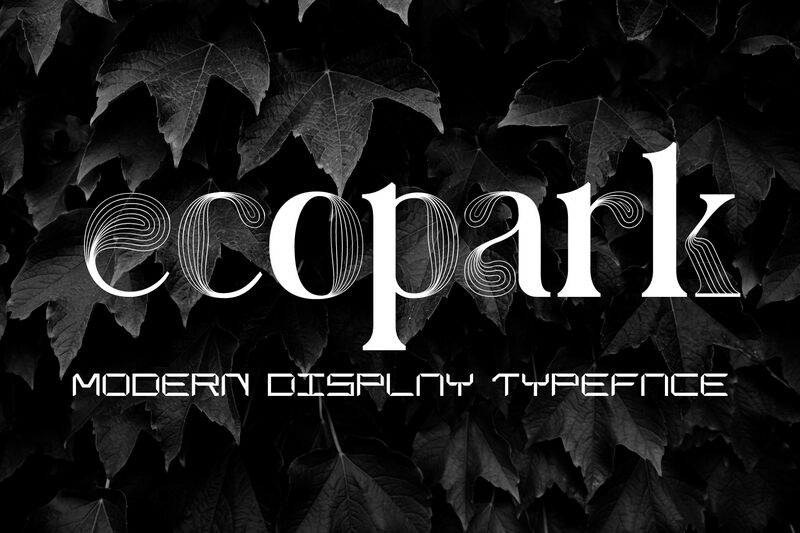
Ecopark font by 177Studio is a free decorative display font with an ornate, sophisticated, and artistic design. It boasts high-contrast characters with thin curves, elegant shapes, and delicate lines which ensure a stylish yet clear presentation of every letter. Each character has been meticulously crafted so that they grace your textual projects with their absence of monotony. The beauty of the Ecopark font derives from its simplicity and elegance.
Use this beauty in social media posts on Instagram or Facebook; main headings for your magazines or newspapers; greeting card messages for wedding, Valentine’s Day, or anniversary wishes; as well as branding designs and logos. Other applications include packaging design (tea jars & bottles), book covers (teen fiction), resume headers and section classification titles, advertisements (women’s perfume).